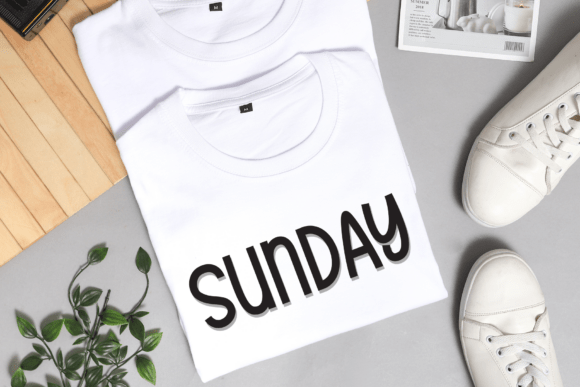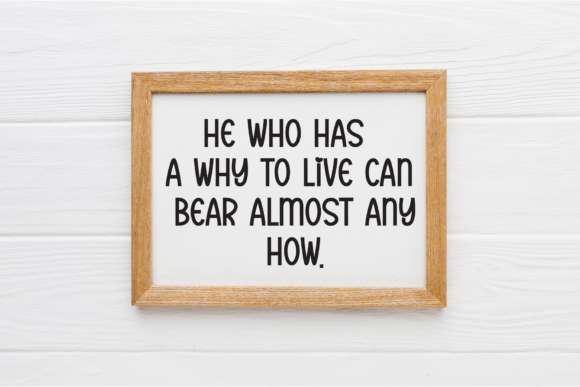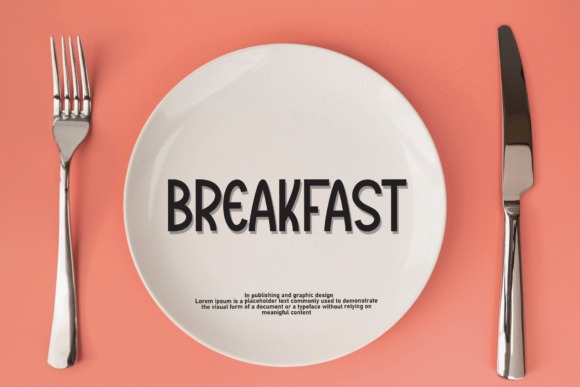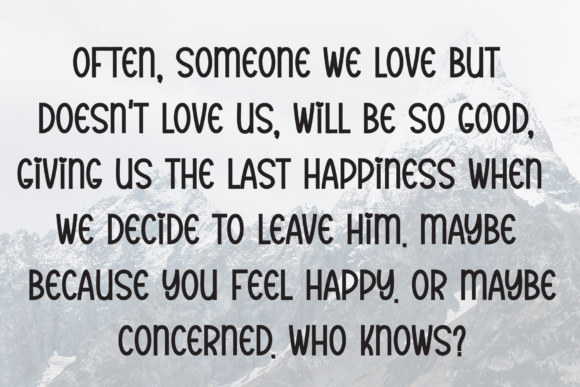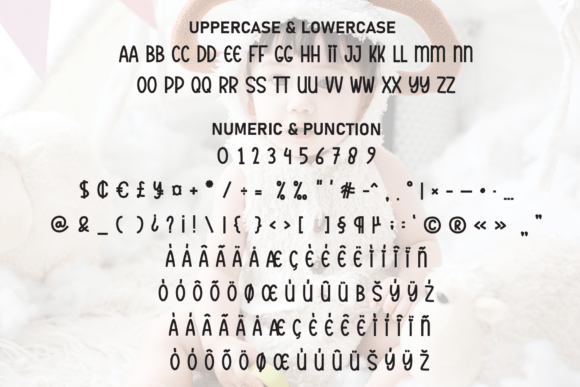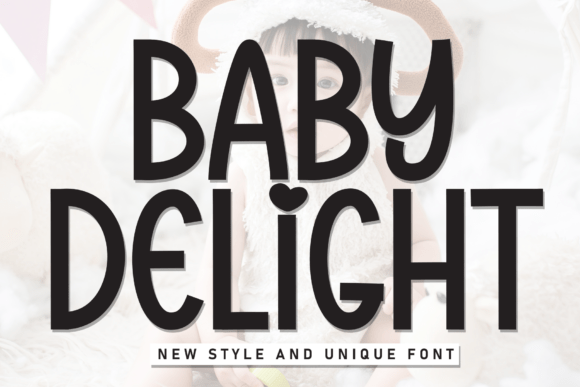
Baby Delight Font: Adding a Touch of Playfulness to Your Designs
In the world of typography, fonts play a crucial role in conveying the tone and personality of a brand or design. If you’re looking for a font that exudes playfulness, energy, and a strong personality, look no further than the Baby Delight Font. This bold, quirky display font is perfect for designers and crafters who want to add a touch of modern flair to their work.
What is Baby Delight Font?
Baby Delight Font is a bold, display font that boasts a playful energy and strong personality. Its thick strokes and uniquely curved edges make it stand out in any design, making it perfect for eye-catching headlines, youth-focused branding, posters, and creative social media graphics. This fun, confident typeface radiates modern flair, making it an excellent choice for designers who want to create visually appealing and engaging designs.
Key Features of Baby Delight Font
- Bold and Quirky: Baby Delight Font is a bold, quirky display font that adds a touch of playfulness to any design.
- Thick Strokes: The font features thick strokes that make it stand out in any design.
- Uniquely Curved Edges: The uniquely curved edges of the font add a touch of modern flair to any design.
- Playful Energy: The font exudes a playful energy that makes it perfect for youth-focused branding and creative social media graphics.
- Strong Personality: Baby Delight Font has a strong personality that makes it perfect for designers who want to create visually appealing and engaging designs.
Uses of Baby Delight Font
Baby Delight Font is a versatile font that can be used in a variety of design projects, including:
- Headlines: The font is perfect for creating eye-catching headlines that grab the attention of your audience.
- Youth-Focused Branding: The playful energy of the font makes it perfect for youth-focused branding projects.
- Posters: The font is ideal for creating visually appealing posters that showcase a message or promote an event.
- Social Media Graphics: The font is perfect for creating creative social media graphics that engage and interact with your audience.
Why Choose Baby Delight Font?
There are several reasons why designers and crafters should choose Baby Delight Font for their design projects:
- Unique and Eye-Catching: The font is unique and eye-catching, making it perfect for designers who want to create visually appealing designs.
- Playful Energy: The font exudes a playful energy that makes it perfect for youth-focused branding and creative social media graphics.
- Easy to Read: Despite its bold and quirky design, the font is easy to read, making it perfect for headlines and titles.
- Versatile: The font is versatile and can be used in a variety of design projects, from posters to social media graphics.
Tips for Using Baby Delight Font
Here are some tips for using Baby Delight Font in your design projects:
- Use it for Headlines: The font is perfect for creating eye-catching headlines that grab the attention of your audience.
- Pair it with Other Fonts: The font can be paired with other fonts to create a unique and visually appealing design.
- Use it for Youth-Focused Branding: The playful energy of the font makes it perfect for youth-focused branding projects.
- Experiment with Colors: The font can be used with a variety of colors to create a unique and visually appealing design.
In conclusion, Baby Delight Font is a bold, quirky display font that adds a touch of playfulness to any design. Its thick strokes and uniquely curved edges make it stand out in any design, making it perfect for eye-catching headlines, youth-focused branding, posters, and creative social media graphics. With its playful energy and strong personality, this font is perfect for designers and crafters who want to create visually appealing and engaging designs.